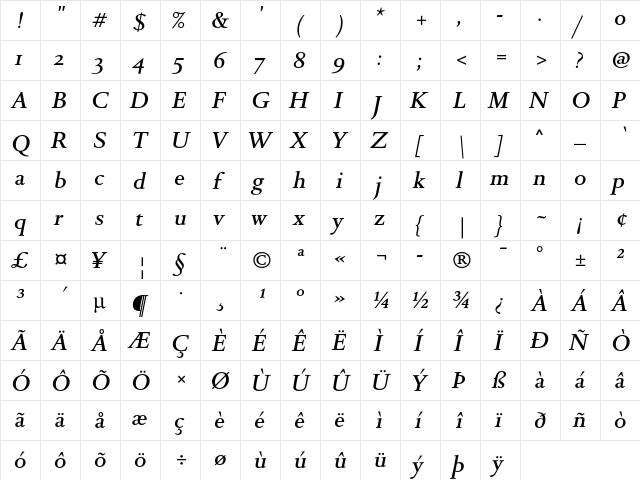
DTLRomulusSTMedium Regular
Design Context for DTLRomulusSTMedium Typeface
DTLRomulusSTMedium takes a measured approach to typography — its balanced proportions and neutral character make it a reliable workhorse for both digital and print work.